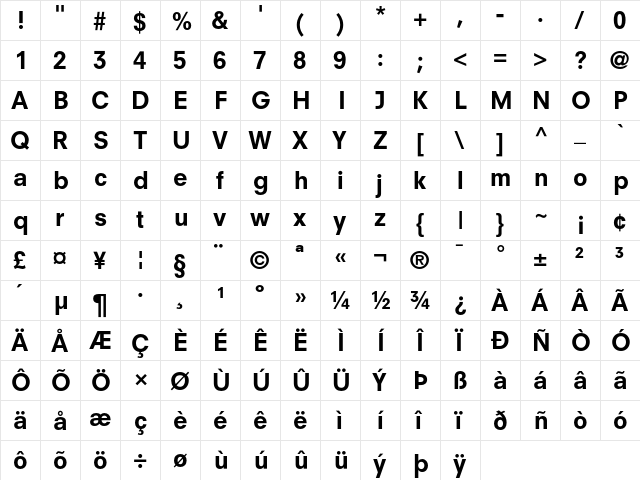
NeuzeitS BookHeavy
Design Context for NeuzeitS Typeface
NeuzeitS takes a measured approach to typography — its balanced proportions and neutral character make it a reliable workhorse for both digital and print work.